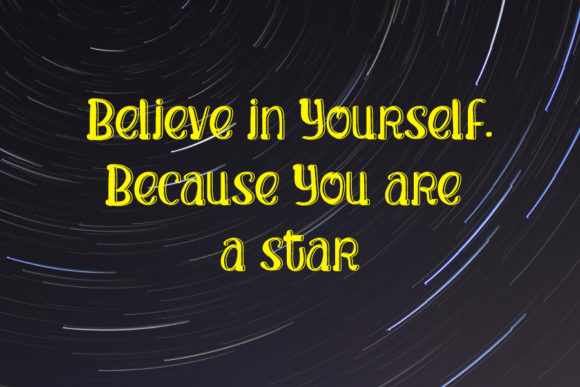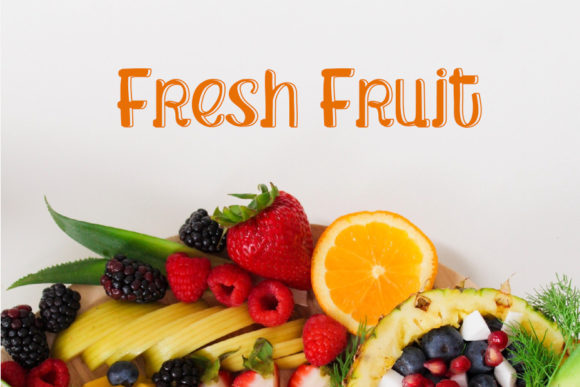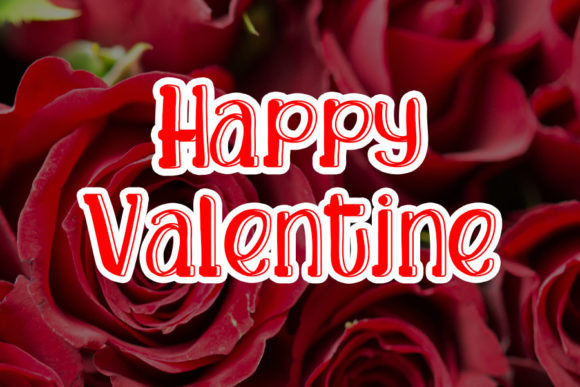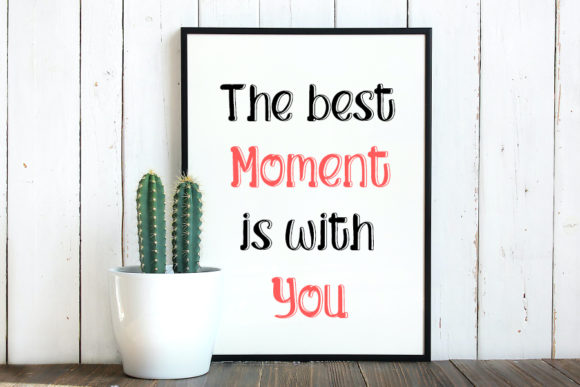
About Cameliya Font
Introducing “Cameliya” – a sweet, flowing, and festive handwritten font that will add a touch of joy and elegance to your design projects. With its gentle and graceful letterforms, this font is perfect for a wide range of creative ideas, infusing them with a sense of beauty and celebration.
Cameliya’s flowing and festive style evokes a feeling of joy and happiness. Its elegant curves and gentle strokes create a sense of grace and beauty, making it a perfect choice for adding a touch of sophistication to your designs. Whether you’re designing wedding invitations, greeting cards, branding materials, or any other project that calls for a sweet and flowing font, Cameliya will elevate your designs and bring them to life.
This font’s versatility allows it to adapt to various design concepts and ideas. Its delicate and festive nature makes it suitable for a wide range of projects, from elegant wedding stationery and event invitations to joyful holiday-themed designs. Let Cameliya be the font that adds a touch of celebration and beauty to each of your projects.
Cameliya’s flowing and festive style adds a joyful touch to your designs, creating a sense of warmth and elegance. Its handwritten charm adds a personal and authentic feel, making your designs stand out and leave a lasting impression on your audience.
Embrace the sweetness and flowing beauty of Cameliya and notice how it transforms your design ideas into gorgeous and joyful creations. Let it inspire you to create designs that capture the spirit of celebration and spread happiness. With Cameliya, your projects will shine with elegance and charm.